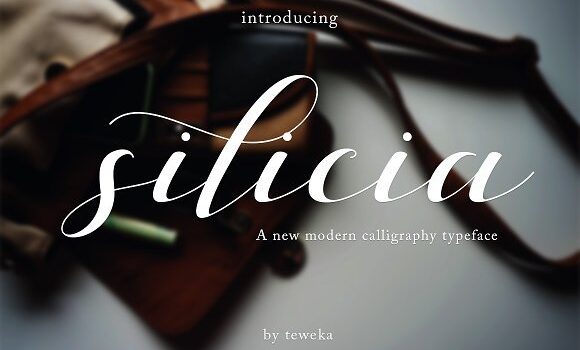
Silicia Font – Free Download Introduction to Silicia Font Silicia is a fresh script font packed with over 300 carefully drawn glyphs. 📸 Preview Gallery 5 images 📌 Product Name Silicia Font 👤 Author Teweka 📂 Category Explore ⬇️ Download